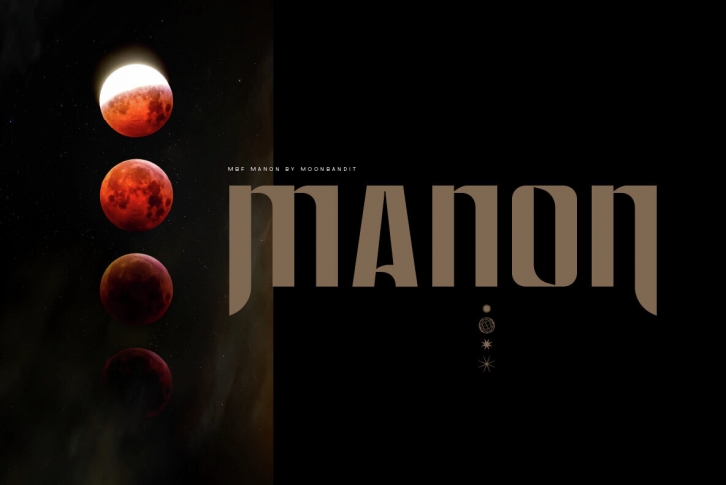
MBF Manon Font Download
Introducing MBF Manon, a striking modern display typeface brought to life by the creative minds at Moonbandit Font Foundry. With its clean lines, geometric forms, and contemporary elegance, MBF Manon effortlessly captures attention and commands the spotlight in any design project.
This versatile typeface is designed to shine in various settings, from eye-catching headlines on websites and posters to captivating branding elements for logos and packaging. Its well-balanced proportions and thoughtful spacing make it a perfect choice for both digital and print applications, ensuring legibility and visual impact across all mediums.